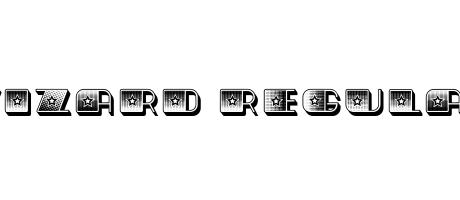
Wizard
Wizard Regular: A bold, retro-styled font with a playful edge. Each letter is a blocky, almost embossed design, featuring a subtle halftone texture and a small star in each corner, adding a touch of vintage comic book flair. The slight shadow effect adds depth, giving it a 3D feel. It's perfect for titles, logos, or anything requiring a touch of nostalgic charm.